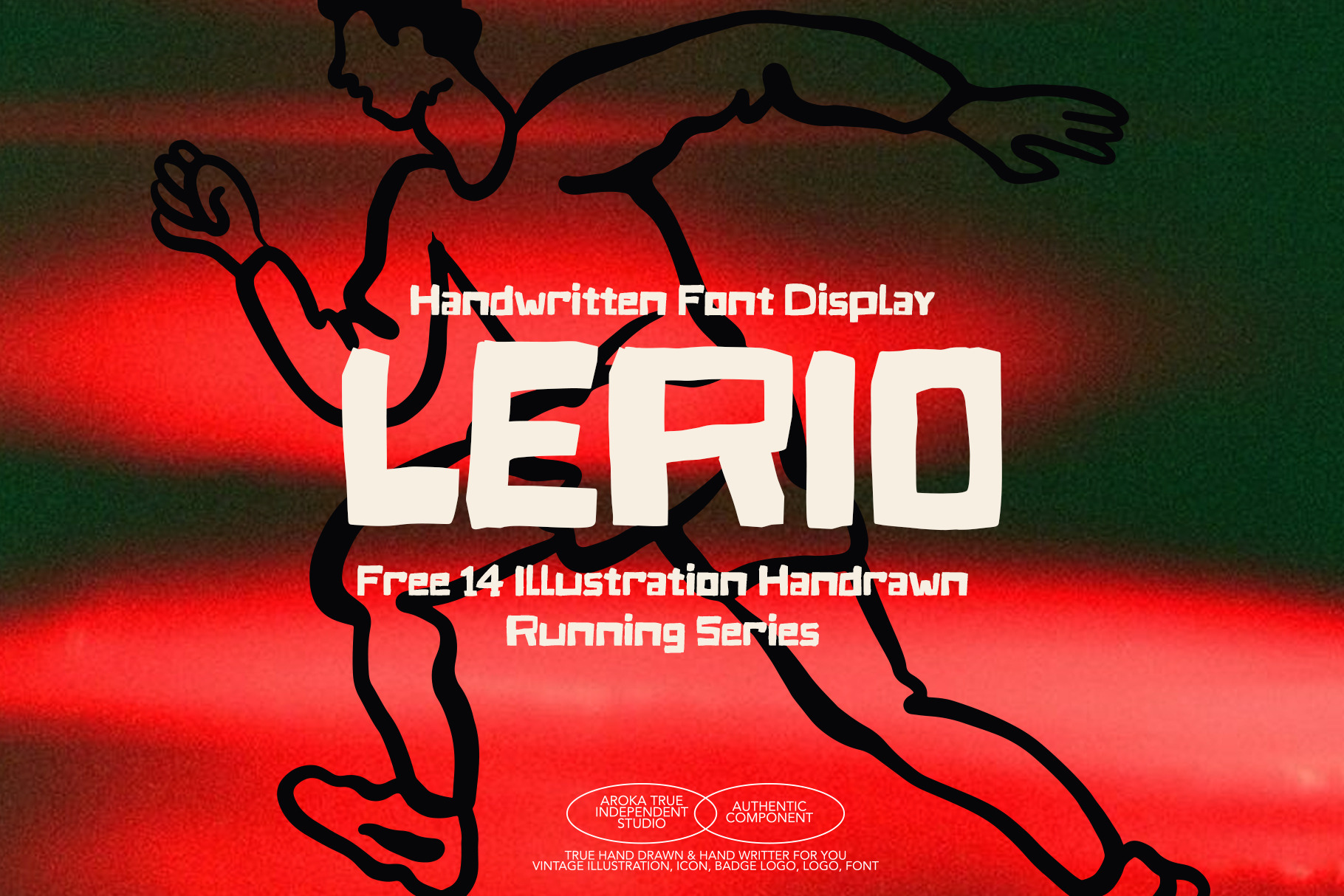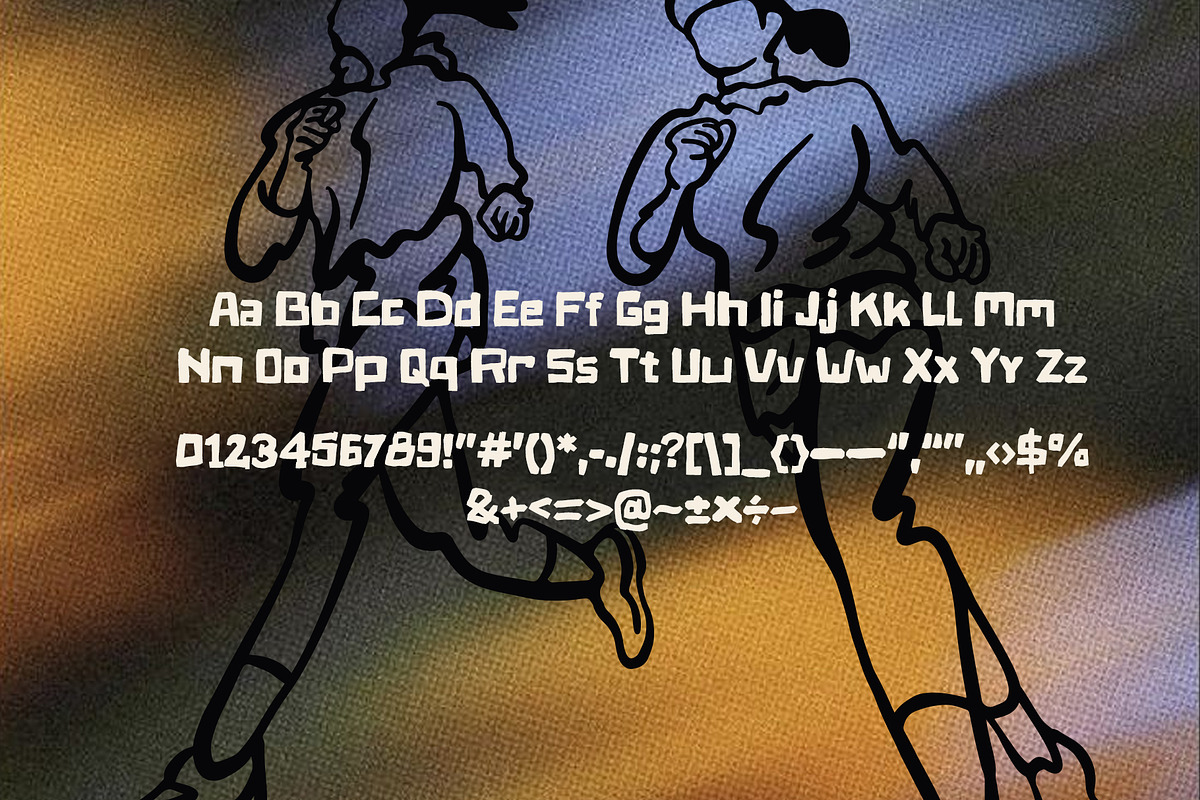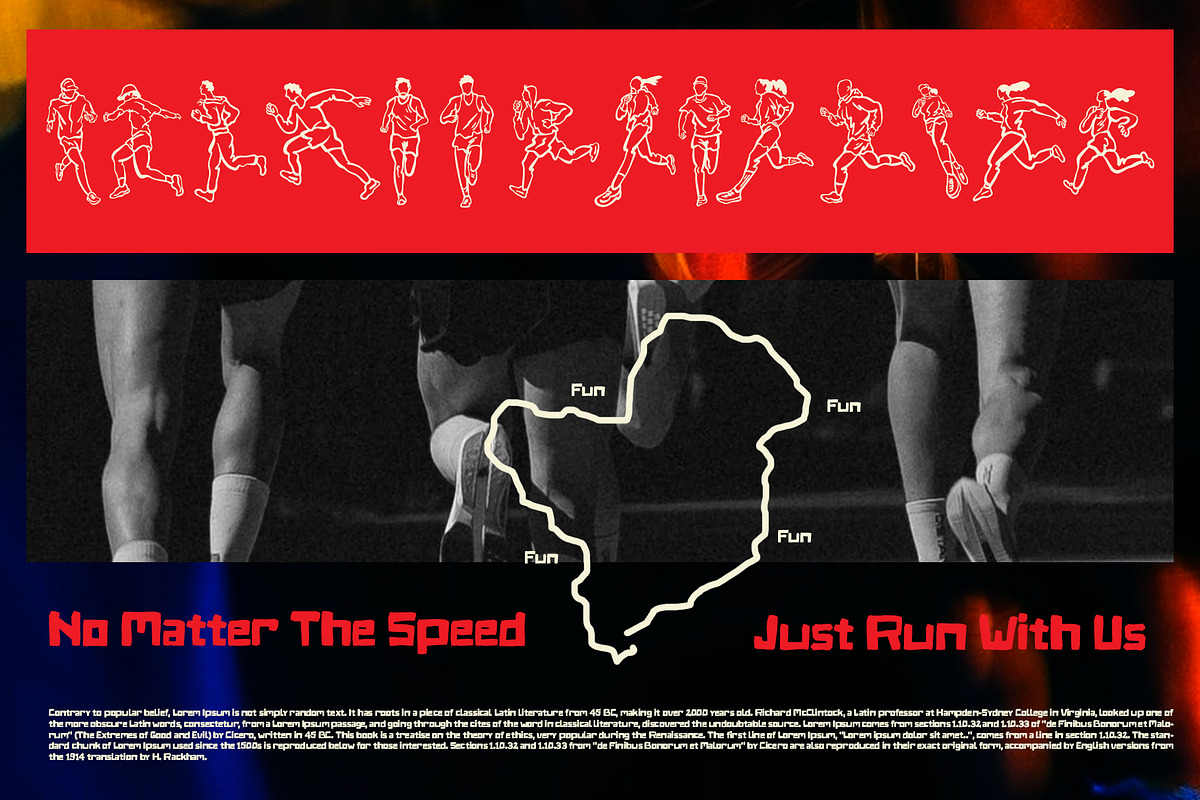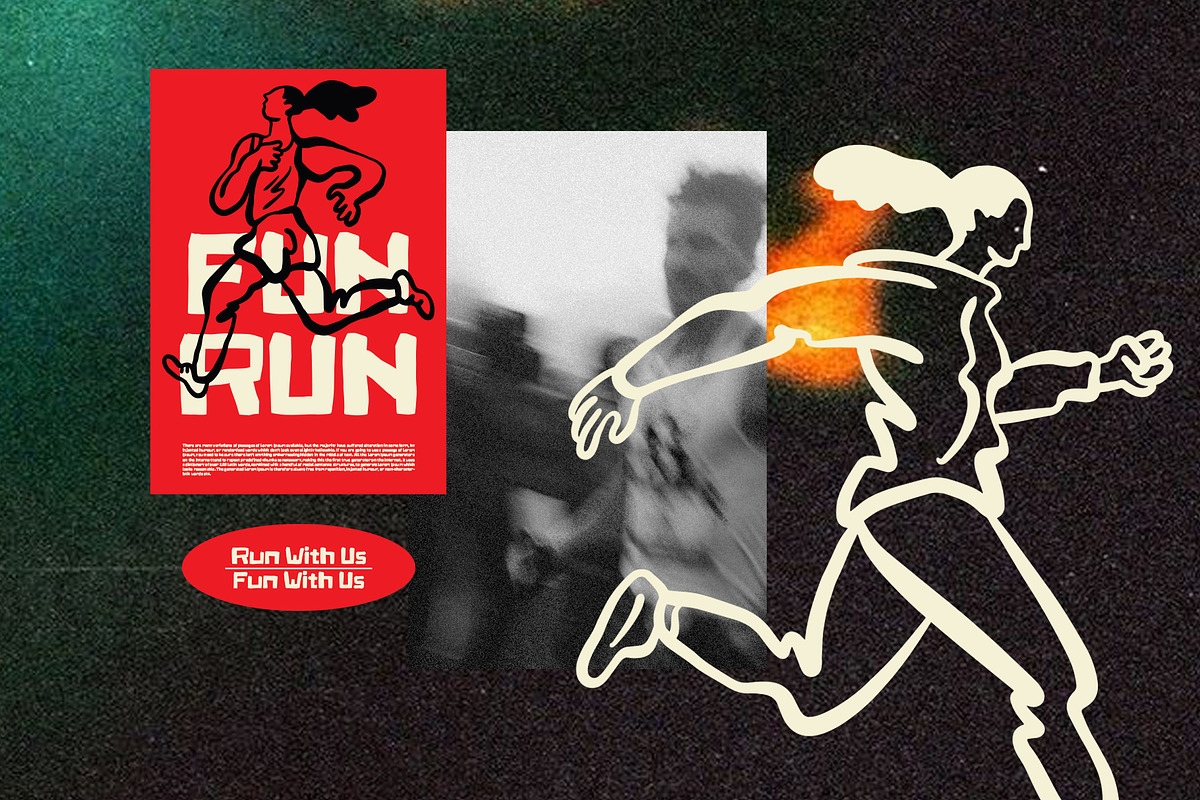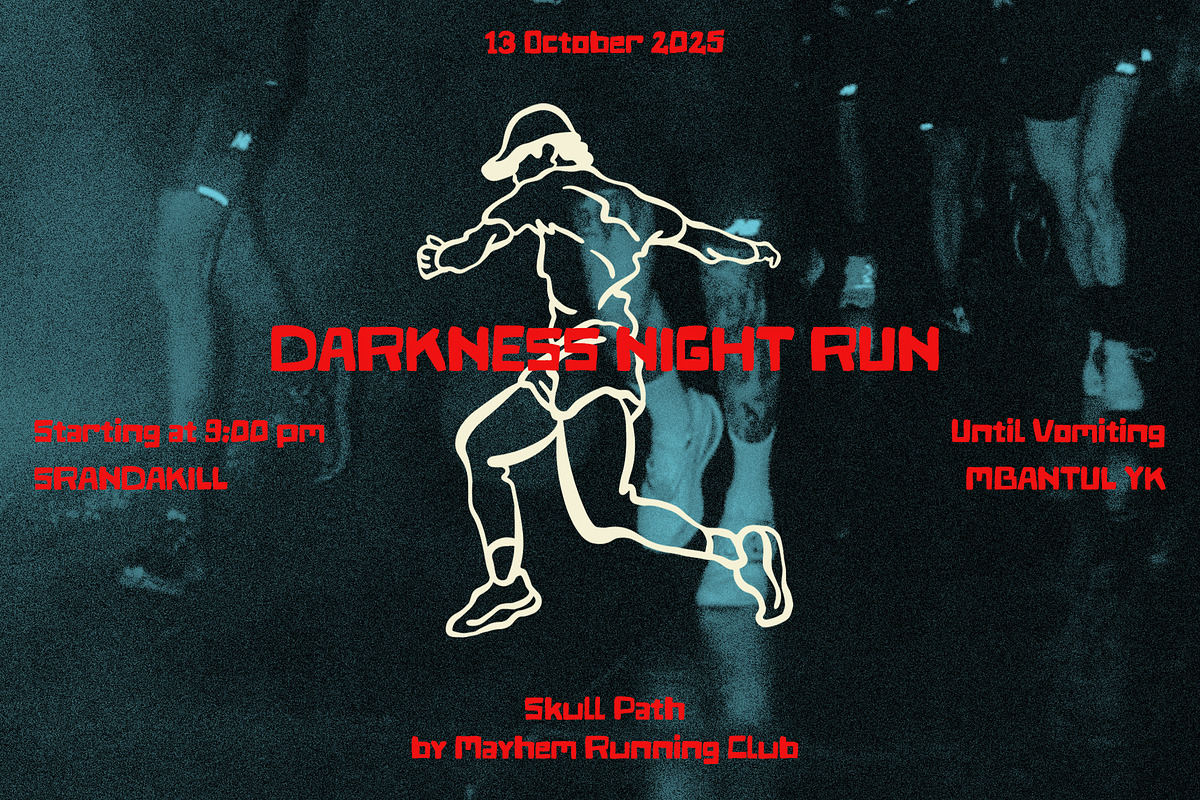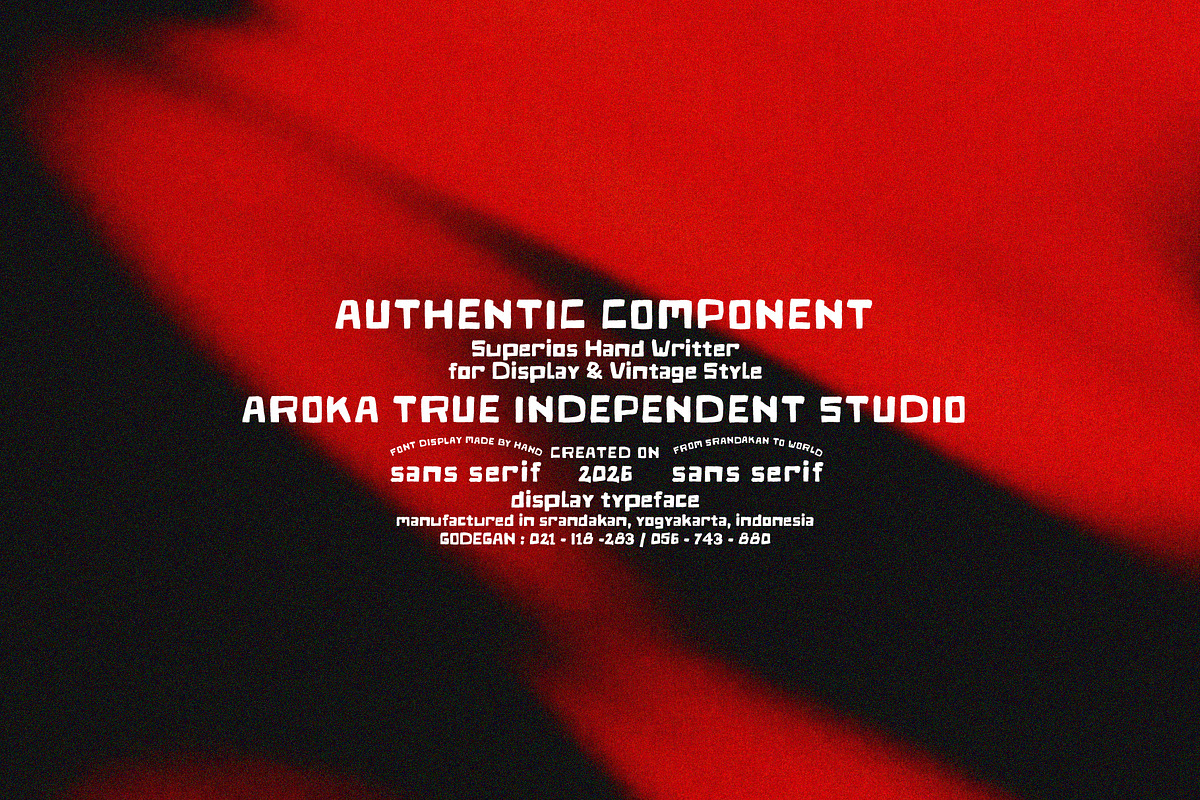
LERIO Font Display
very suitable for displaying running posters, even trail running, the bold and elegant letters are designed manually with a touch of vintage hand-drawn style but are very easy to read, equipped with a bonus of 14 illustrations in Adobe Illustration, PNG, SVG and PDF formats, very easy to edit, good luck !!